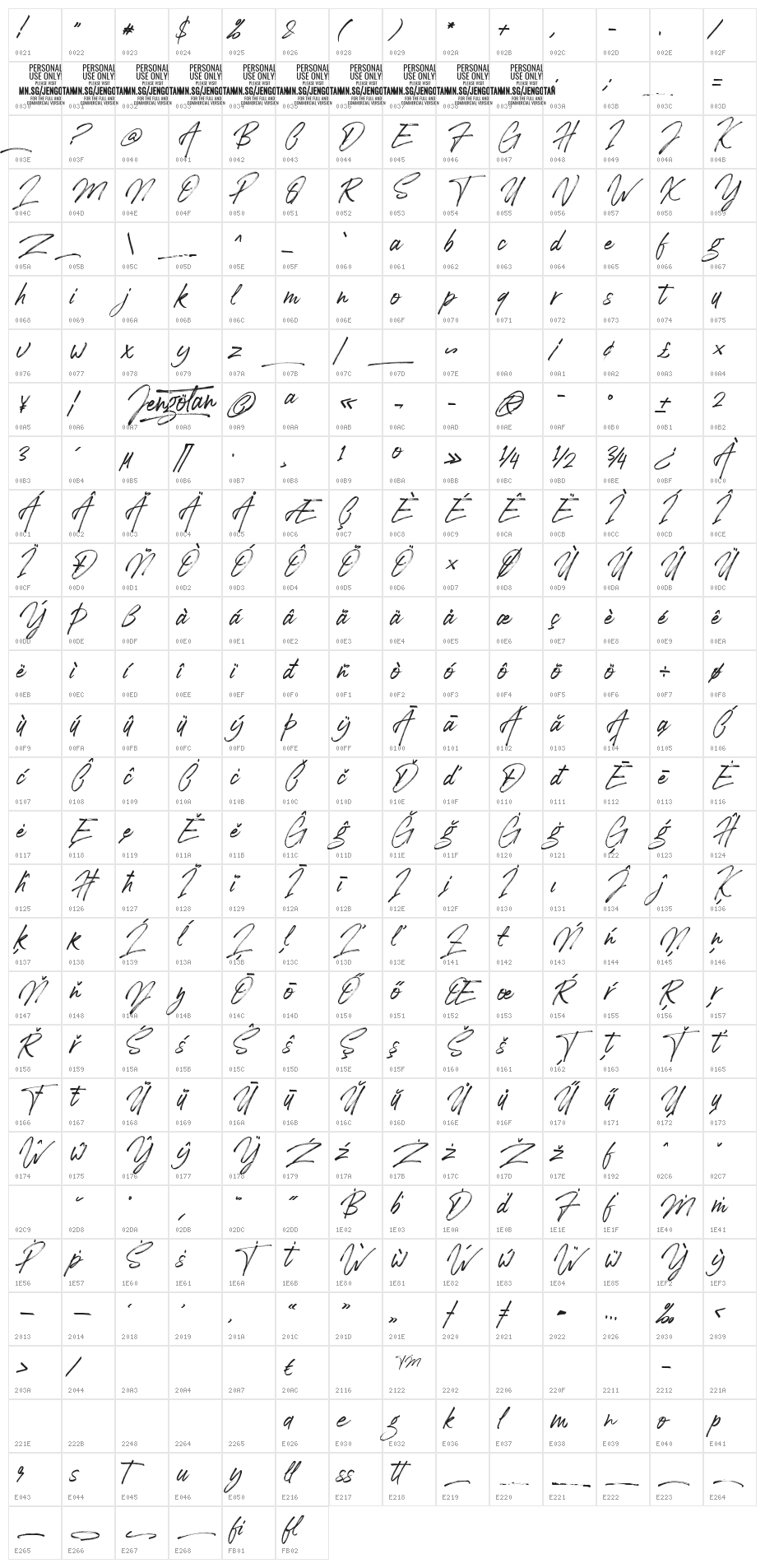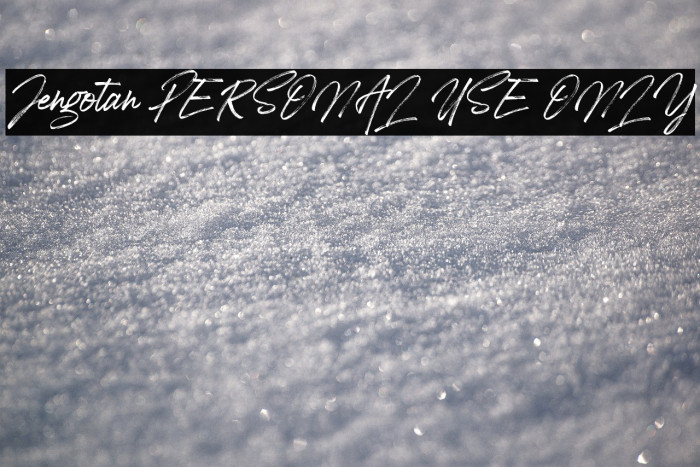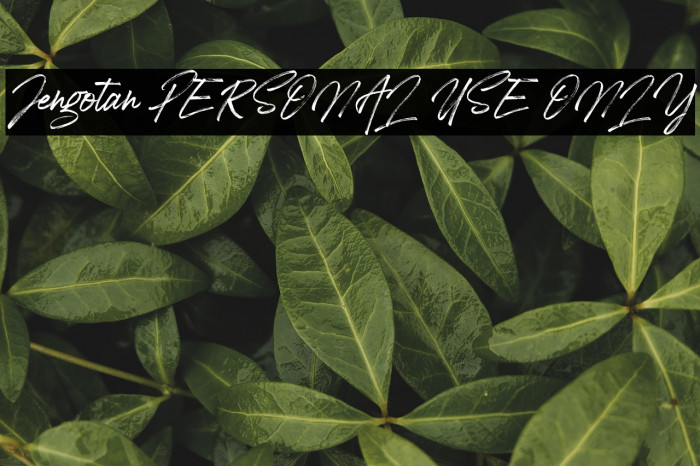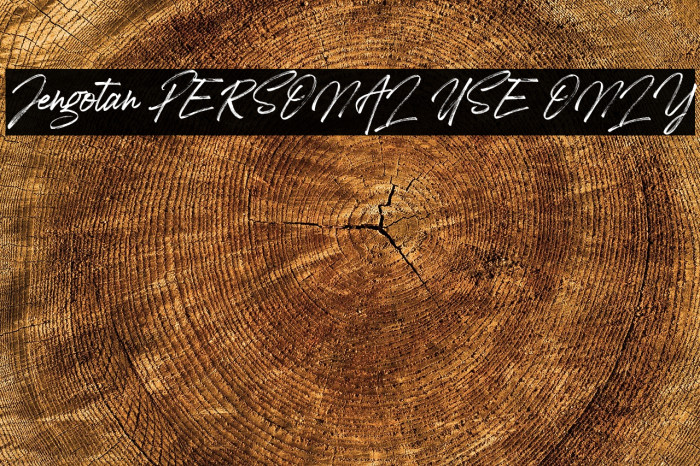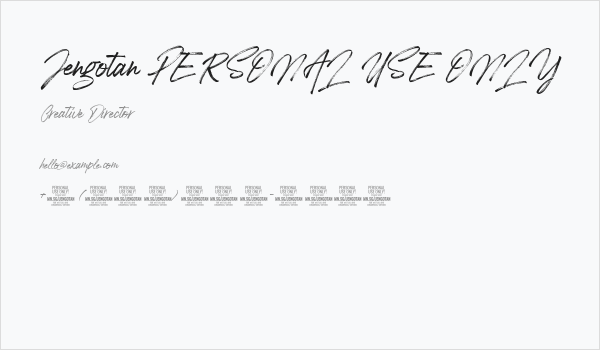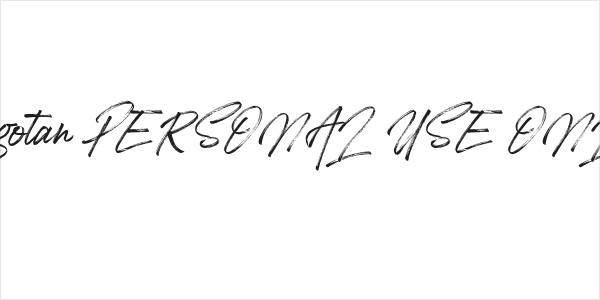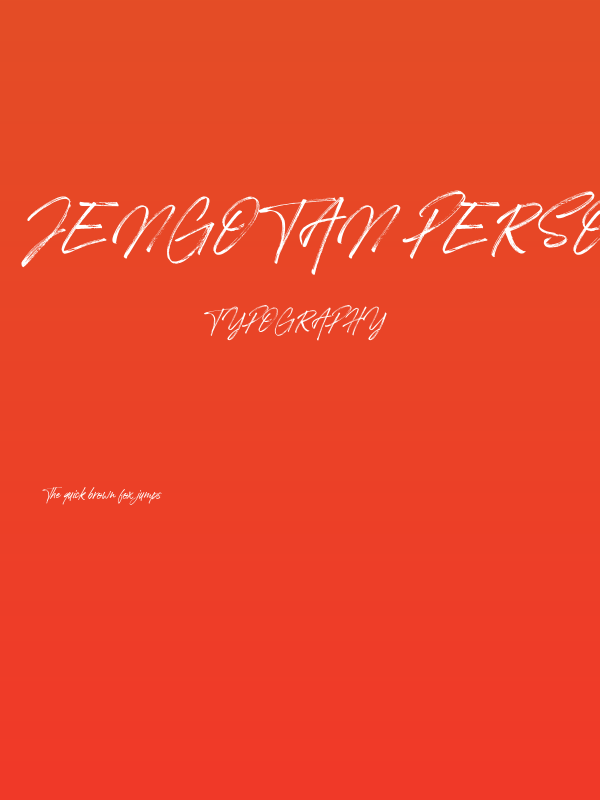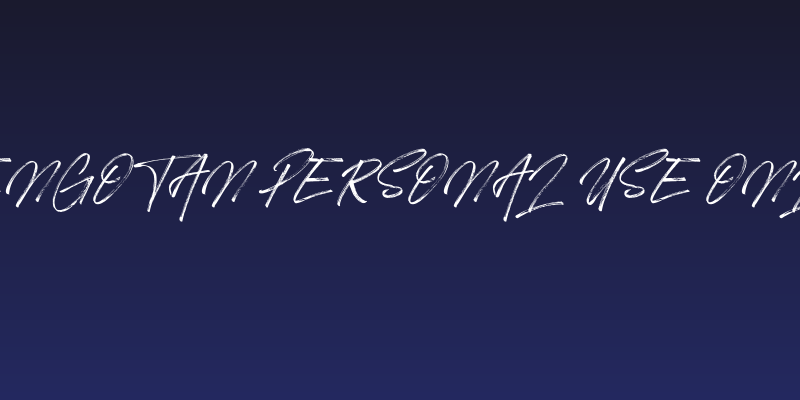
Jengotan PERSONAL USE ONLY Font
Jengotan PERSONAL USE ONLY Description
This font features a dynamic and expressive handwritten style, characterized by its fluid and cursive letterforms. The strokes are varied, with some letters exhibiting a brush-like texture that adds a sense of movement and energy. The uppercase letters are bold and slightly slanted, while the lowercase letters maintain a consistent flow, enhancing readability. The numbers and special characters follow the same stylistic approach, ensuring a cohesive look across all glyphs. This font is ideal for projects that require a personal touch or artistic flair.